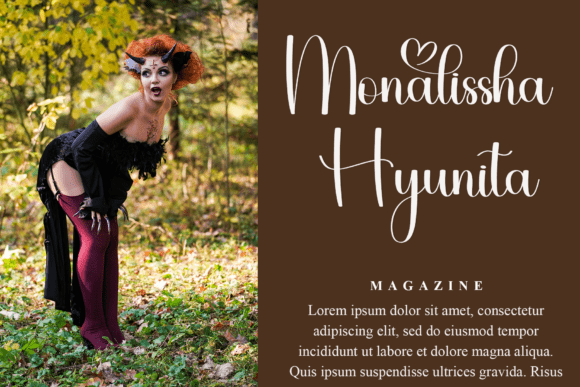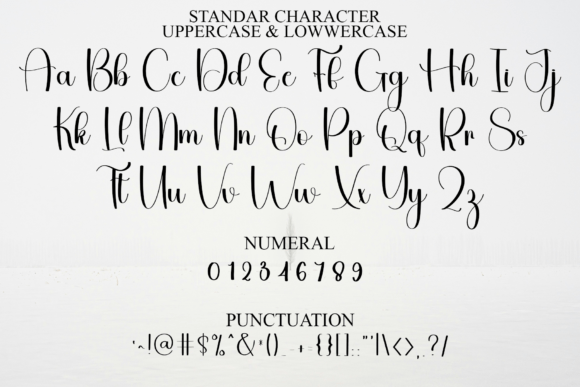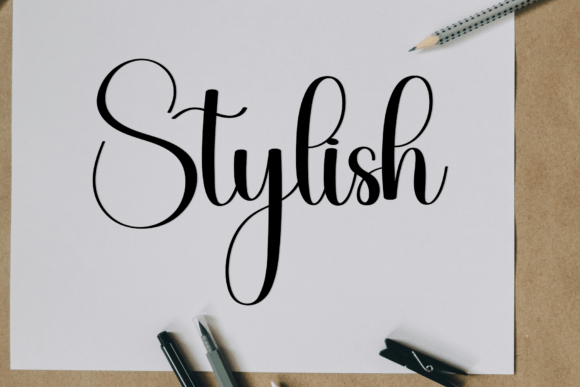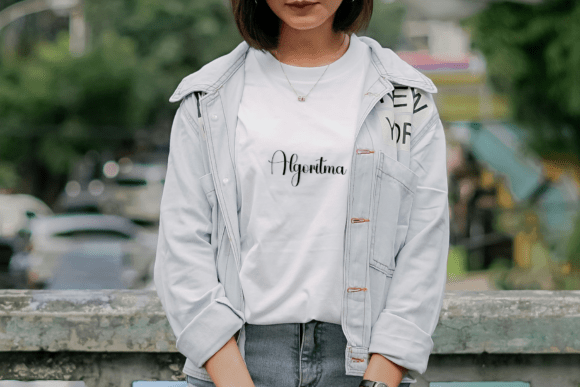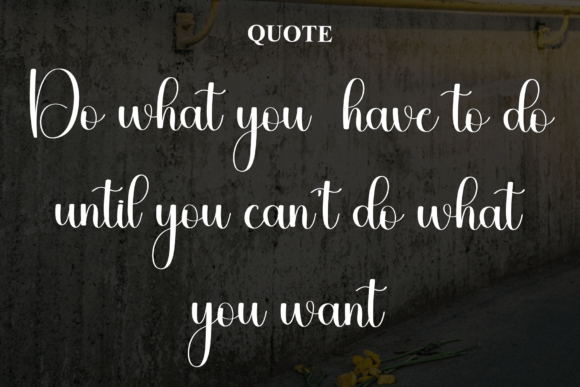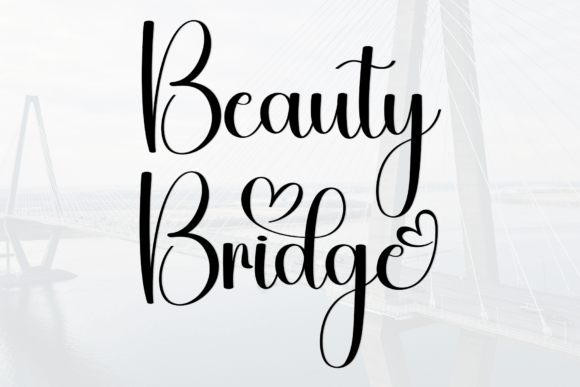
The Perfect Font for Connecting with Your Audience
As designers, we’ve all had those ‘aha’ moments when everything comes together in perfect harmony. The colors, the typography, the overall vibe – it’s like magic. For me, that moment happened when I stumbled upon the Bridge Font. Its elegant, handwritten feel immediately caught my attention, and I knew I had to learn more.
Bridge Font is a timeless, beautiful font that’s perfect for creating eye-catching logos, branding, and quotes. With its unique touch, it brings any design to life. What sets it apart is its ability to connect with audiences on an emotional level, making it a valuable asset for designers. Whether you’re working on a personal project or a client’s branding, Bridge Font is sure to leave a lasting impression.
- Unique Characteristics: Bridge Font features a modern, clean design with subtle rounded edges, making it suitable for a wide range of applications, from corporate branding to editorial content.
Bridge Font Review
Overall, I think Bridge Font is a decent addition to any designer’s toolkit. Here are a few things that really stand out:
- ✨ Elegant, modern feel: The Bridge Font has a clean and sophisticated aesthetic that works well for a variety of applications, from branding to editorial design.
- ✨ Versatility: It comes in a range of weights and styles, making it easy to adapt to different contexts and moods.
- ✨ High-quality rendering: The font renders beautifully at various sizes and resolutions, ensuring a polished look across different mediums.
However, there are a few areas where Bridge Font falls short:
- ⚠️ Limited language support: While it covers a range of Western languages, it’s not as comprehensive as some other fonts in its class.
- ⚠️ Not ideal for small text: Due to its elegant design, Bridge Font can become difficult to read at very small sizes.
- ⚠️ May not be as attention-grabbing as other fonts: Its understated style means it might not stand out in crowded design environments.
Overall, Bridge Font is a solid choice for designers who value a clean, modern aesthetic. While it has its limitations, it’s a great option for a wide range of applications – just be mindful of its potential drawbacks.
Bridge Font is suitable